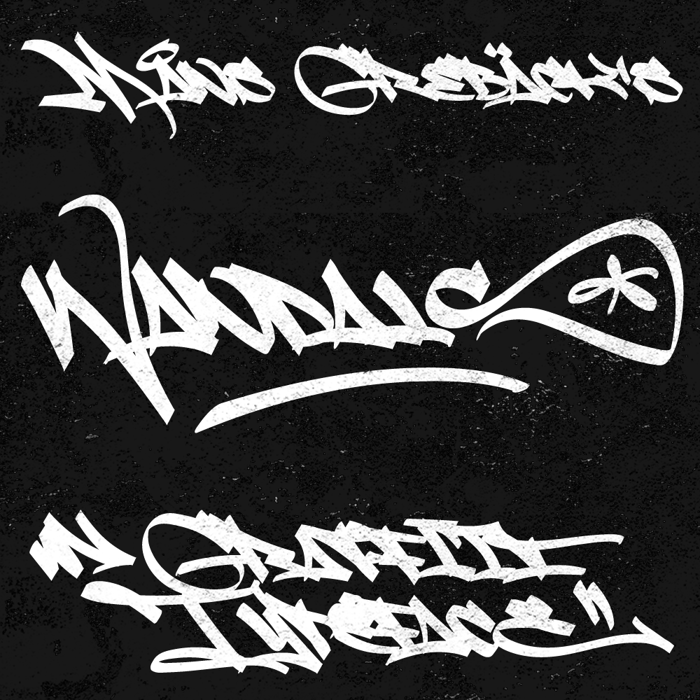
Fat Wandals Font
Functions: Write for example --> or <--- for arrows. Write [ 01 ] to [ 39 ] for symbols.
Writing multiple asteriskes *** or underlines _ _ _ also creates decorative elements.